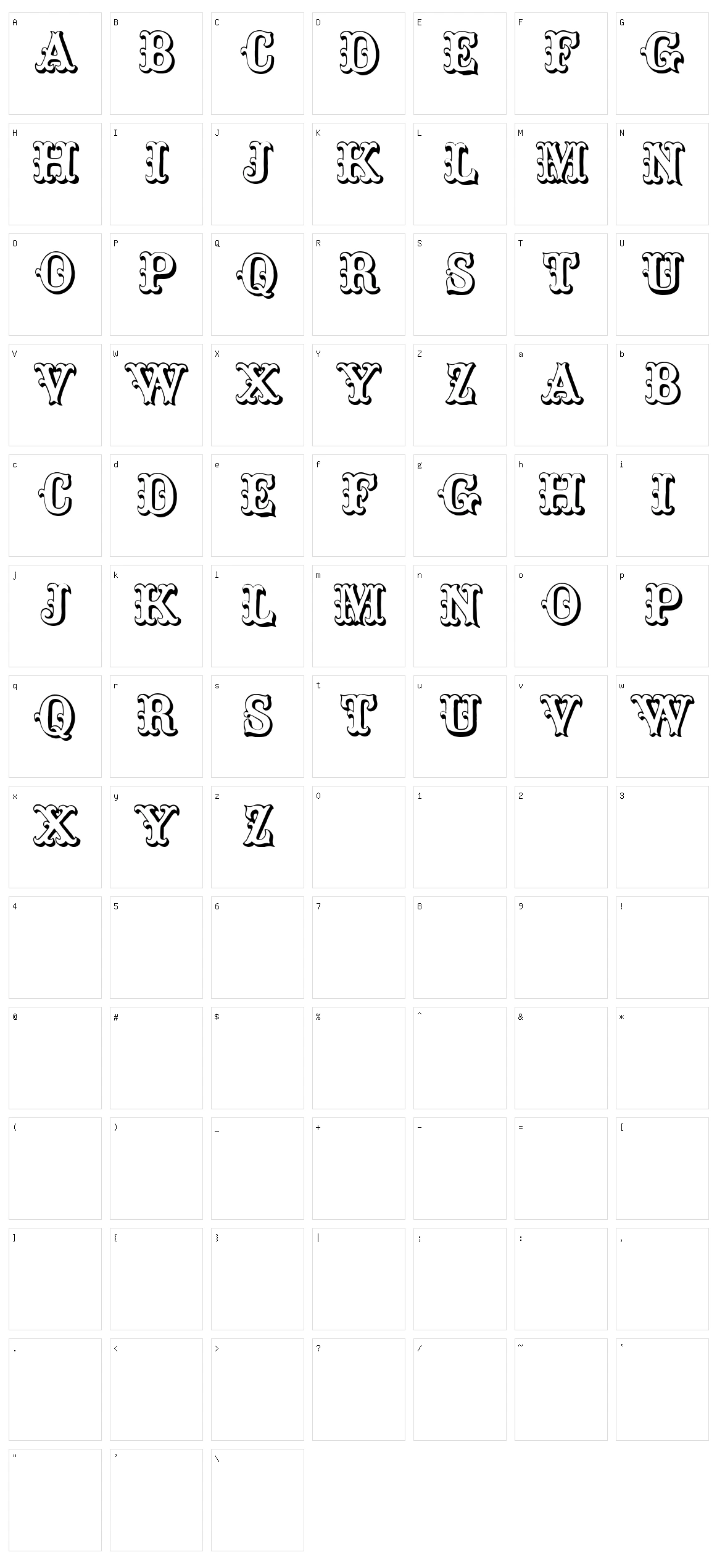
The free font Toskanische Egyptienne Initialen is carefully designed by Dieter Steffmann, showcasing a thoughtful balance of creativity and usability and falls under the Retro font style. When you download the ZIP file, it contains only 45.3 KB of font files, making it lightweight and quick to download. Please review the license details below to understand permitted usage and distribution rights. If license information is not available, we recommend using this font for personal projects only or contacting the author directly for commercial usage permissions.